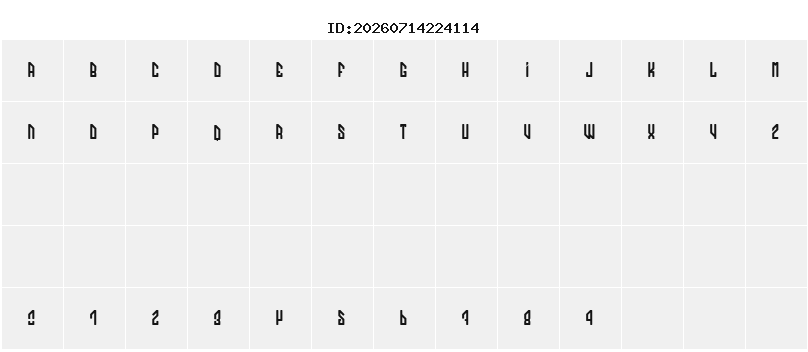
JACKIE TALK TO YOU ! Preview
• Font Name: JACKIE TALK TO YOU !
• Full Font Name: JACKIE TALK TO YOU !
• PostScript Name: JACKIETALKTOYOU
• Character Count: 62
• Manufacturer: Maelle.K
About JACKIE TALK TO YOU !.ttf
JACKIE TALK TO YOU !.ttf is a modern, elegant sans-serif font designed for ultimate readability and visual harmony. Perfect for branding, headlines, web design, and print materials.